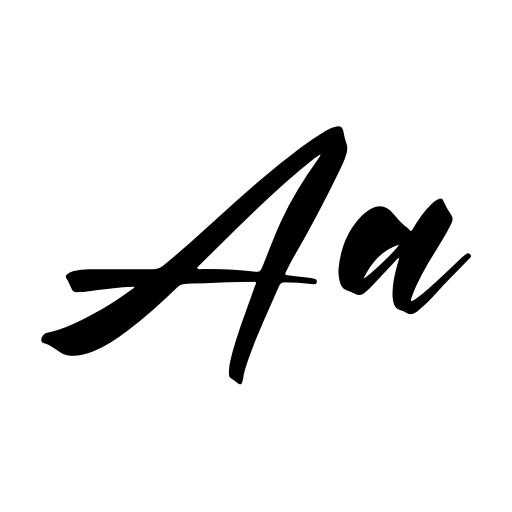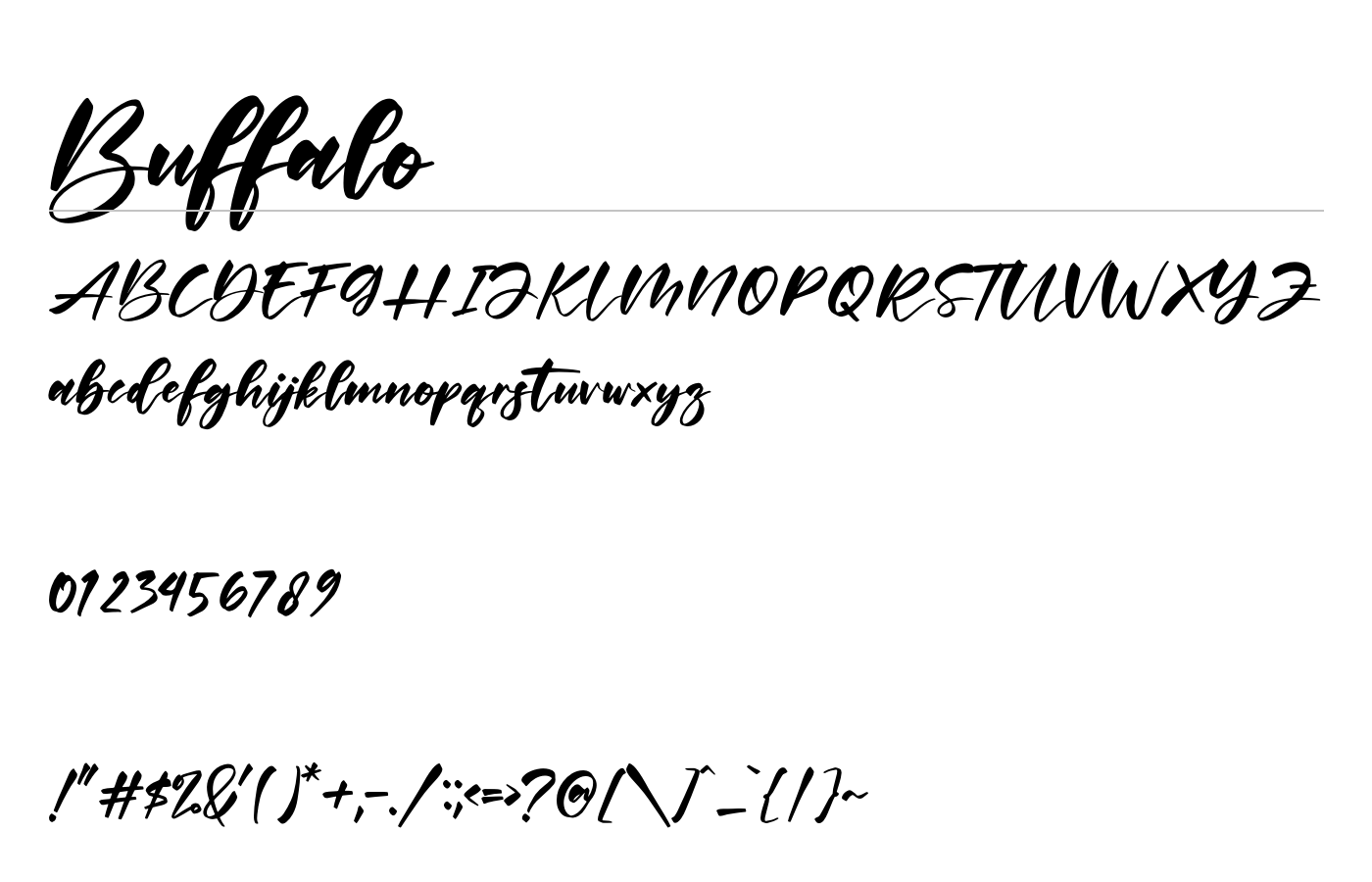
Buffalo is a bold, brush script font that exudes a lively and handcrafted feel with its thick, dynamic strokes and flowing letterforms. It combines a casual yet confident personality, making it ideal for branding, logos, and creative projects that want to convey energy and friendliness. Its clear readability and expressive style work well in headlines or short texts where a personal, artistic touch is desired.
Buffalo Font
About Buffalo Font